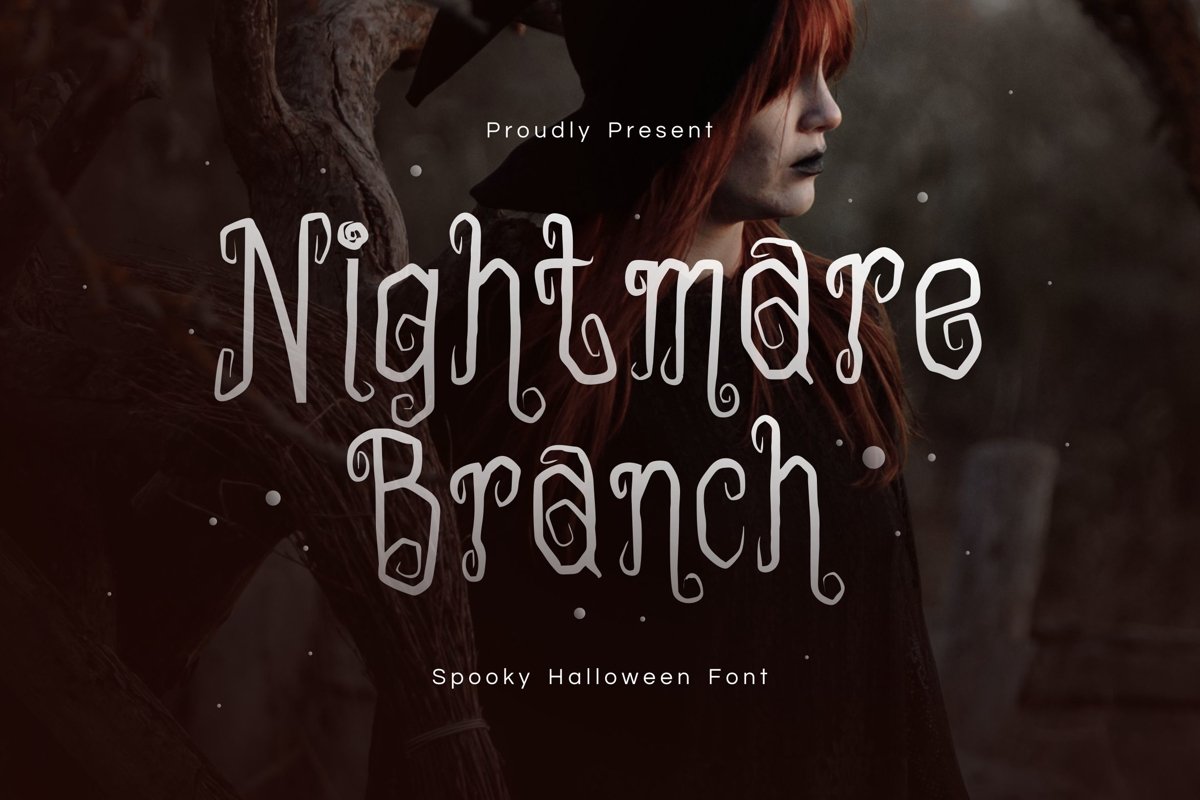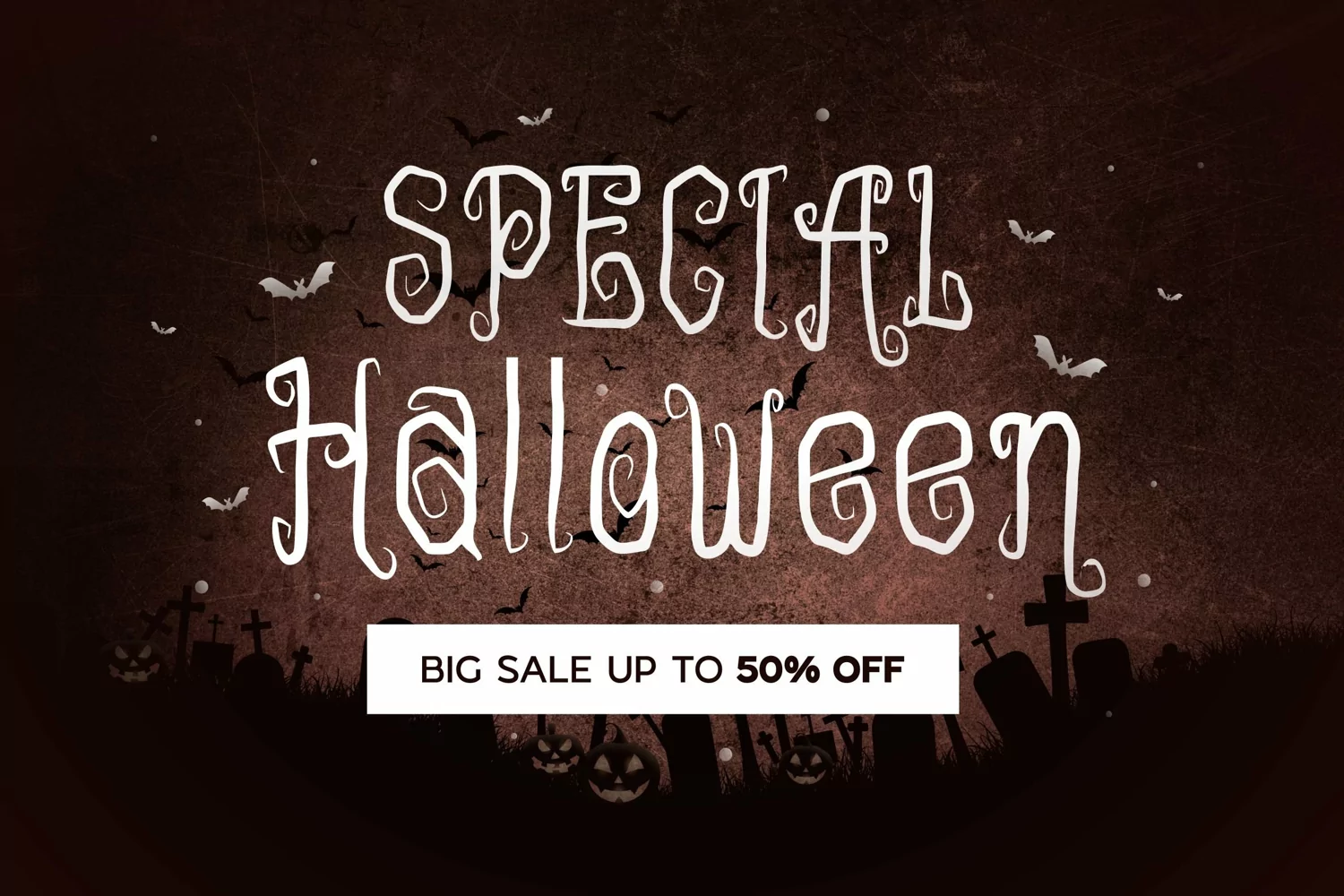
Nightmare Branch Font suitable for some designs such as the logotype, brand, packaging, quotes, music poster, t-shirt, cover book and more custom design. The features uppercase, lowercase, numeral, punctuation & symbol, multilingual support.